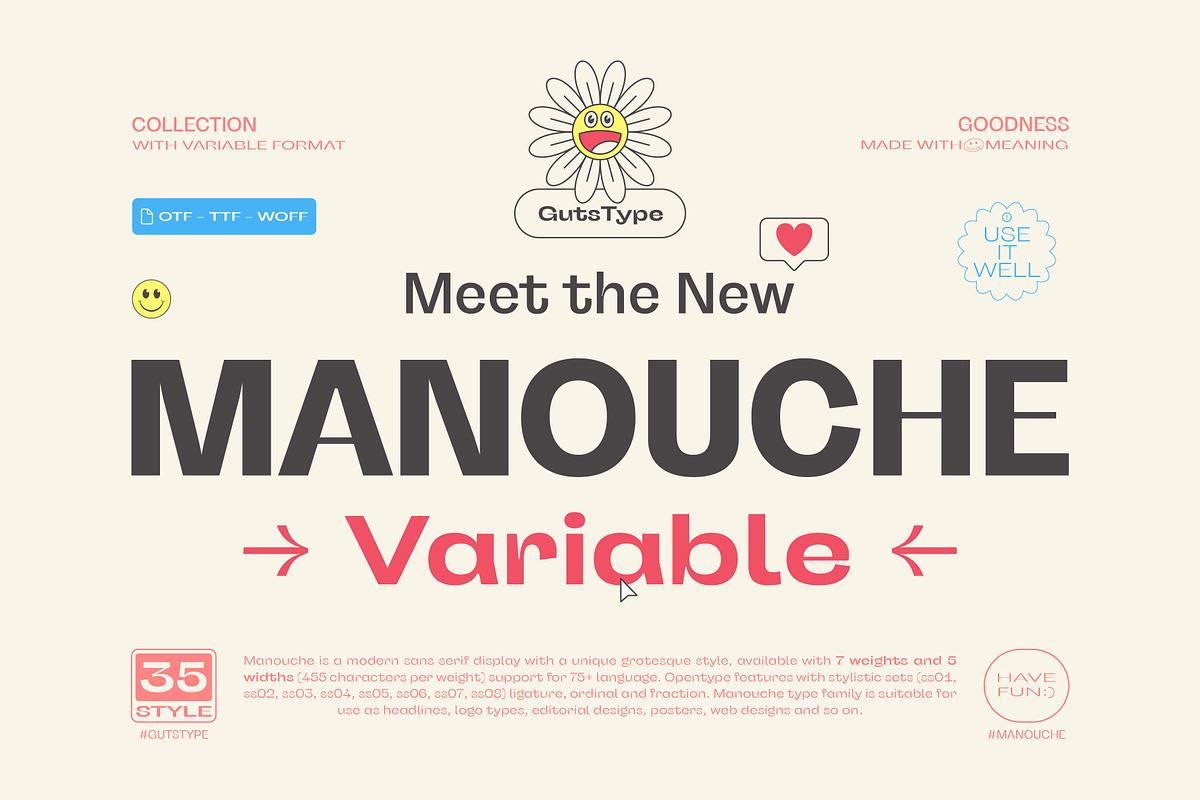
Manouche Font Family Free Download is a stylish and versatile typeface collection that blends vintage charm with modern design sensibility. With multiple weights and styles, it's ideal for branding, editorial layouts, signage, and creative packaging. Manouche offers strong personality and smooth readability, making it a go-to choice for standout typography. Please note that you must purchase this font for commercial use, but it is available as a free download for testing purposes. Enhance your design projects with Manouche Font Family Free Download and explore a rich, expressive font family built for creative impact.